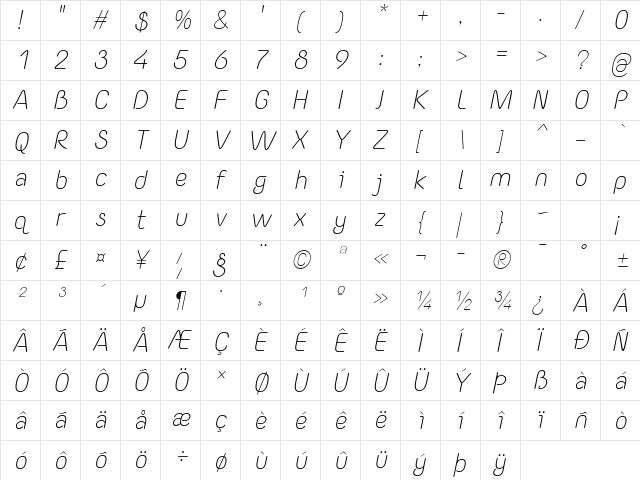
Yaahowu Light Italic Italic
| Designer | Situjuh Nazara |
Design Context for Yaahowu Light Italic Typeface
Yaahowu Light Italic is a composed and adaptable typeface that performs quietly and consistently across a wide range of design contexts. The dynamic lean of this cut emphasises speed and emphasis in any layout. The delicate stroke weight brings airiness and refinement to layouts.
Pro Tip: Use Yaahowu Light Italic for emphasis, pull quotes, and subheadings where its slanted energy can add rhythm to the layout.